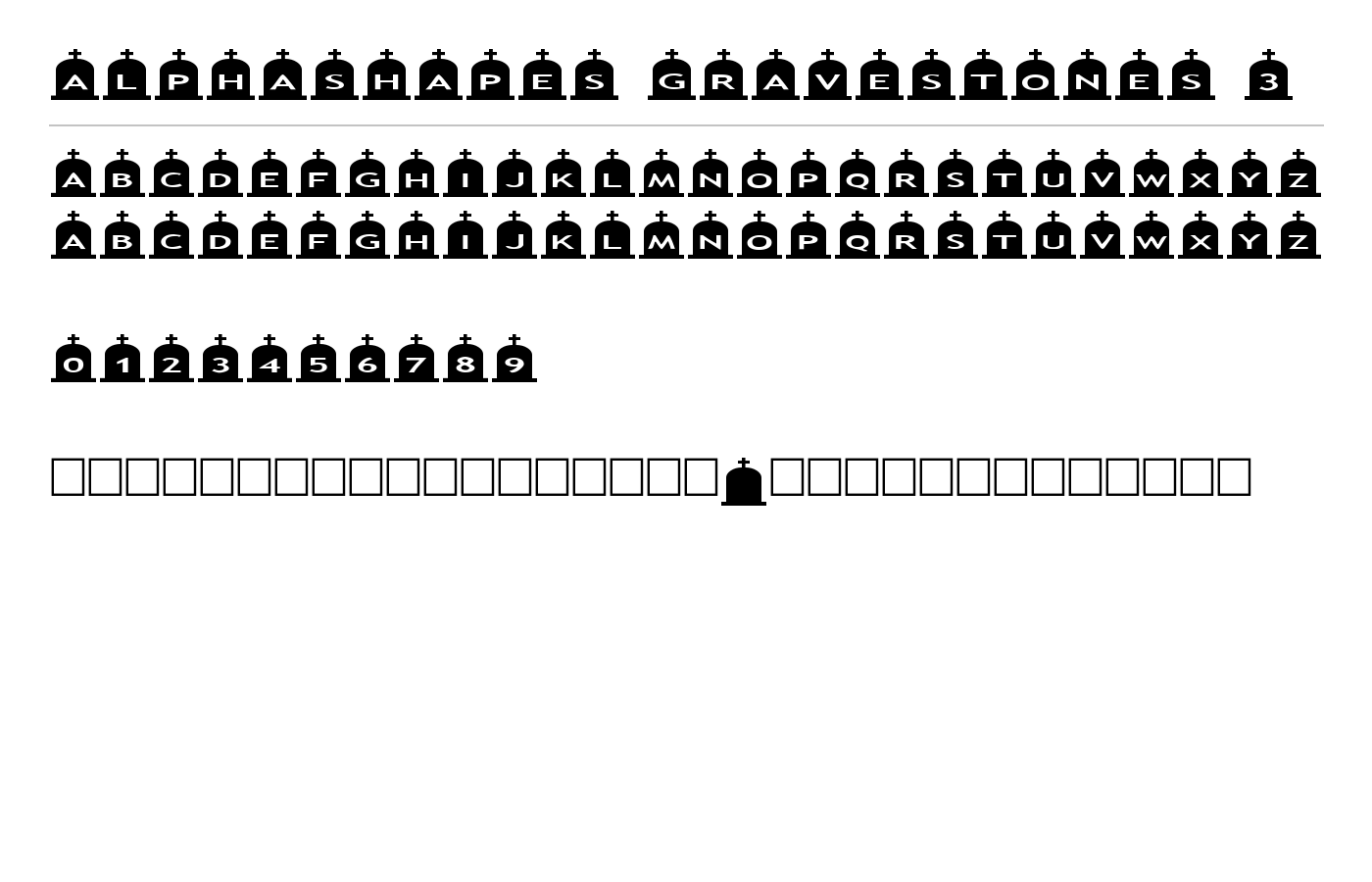
AlphaShapes Gravestones 3 is a decorative, novelty font that uses tombstone shapes as the base for its uppercase letters and numbers, creating a spooky, playful vibe. Its bold, solid forms and uniform width give it strong visual impact, making it perfect for Halloween-themed designs or any project needing a fun yet eerie atmosphere. This font works best in headlines, posters, or themed branding where a bold, unique style is desired.
AlphaShapes gravestones 3 Font
About AlphaShapes gravestones 3 Font